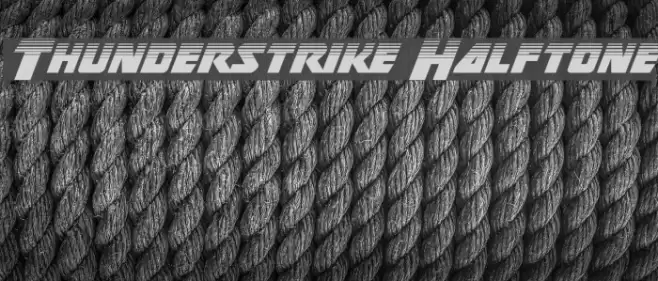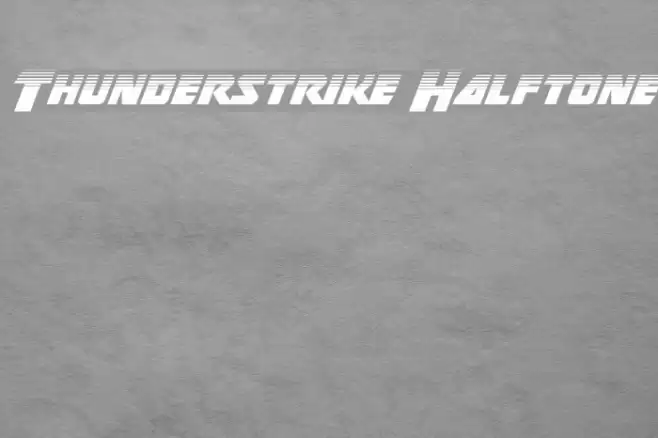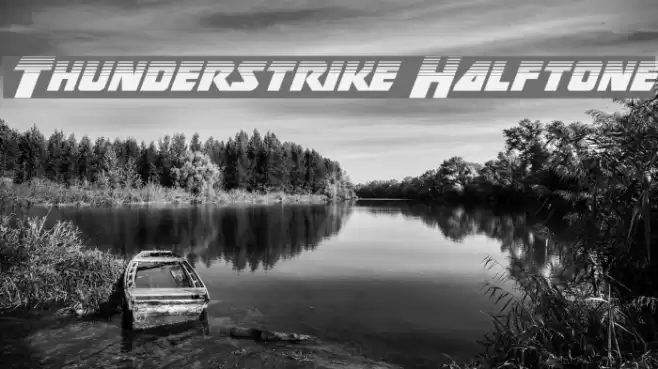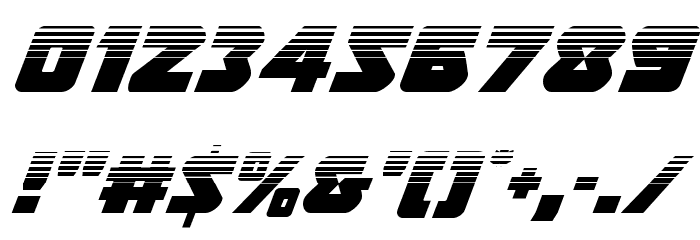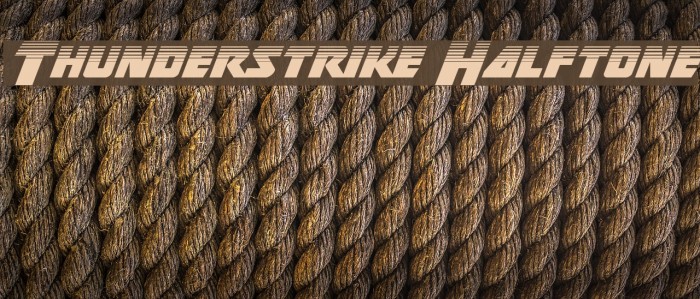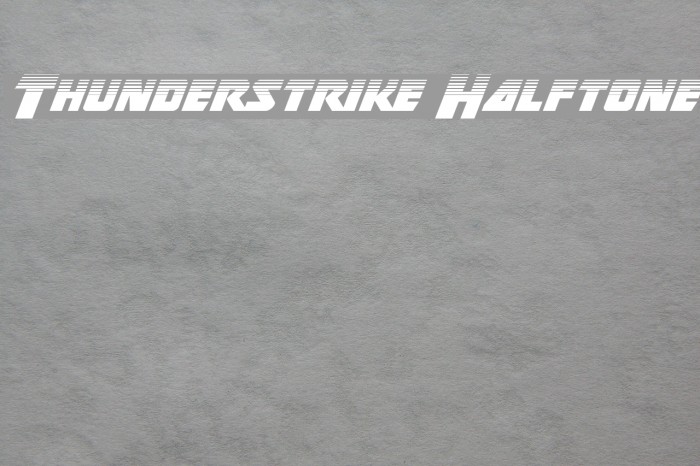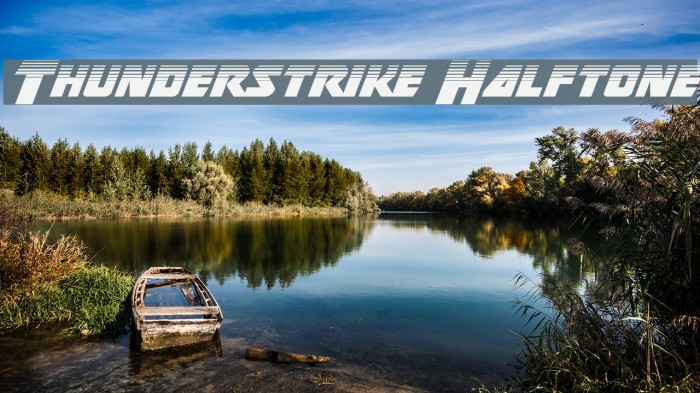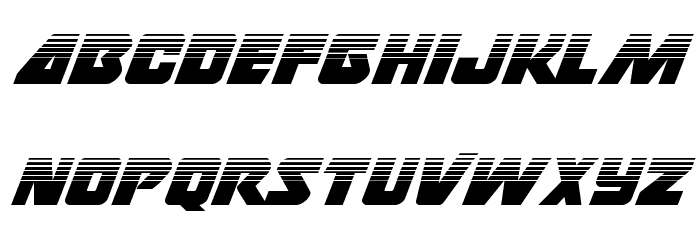
Thunderstrike Halftone Font
Thunderstrike Halftone Description
This dynamic and bold font features a striking halftone effect, giving it a sense of movement and energy. The uppercase and lowercase letters are designed with a futuristic flair, characterized by sharp angles and a slanted orientation. The numbers and special characters maintain this energetic style, making the font suitable for attention-grabbing designs. The halftone pattern adds a unique texture, enhancing its visual appeal and making it stand out in any project.
A bold, dynamic font with a halftone effect and futuristic style from Sci-fi fonts.
- Proposed Projects: Ideal for sports branding, video game titles, posters, and any project requiring a bold, energetic typeface.